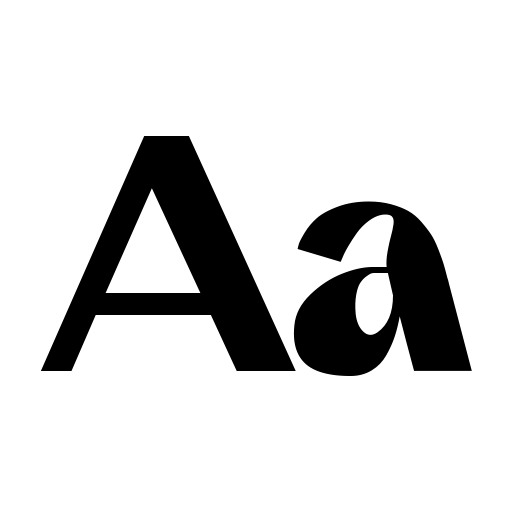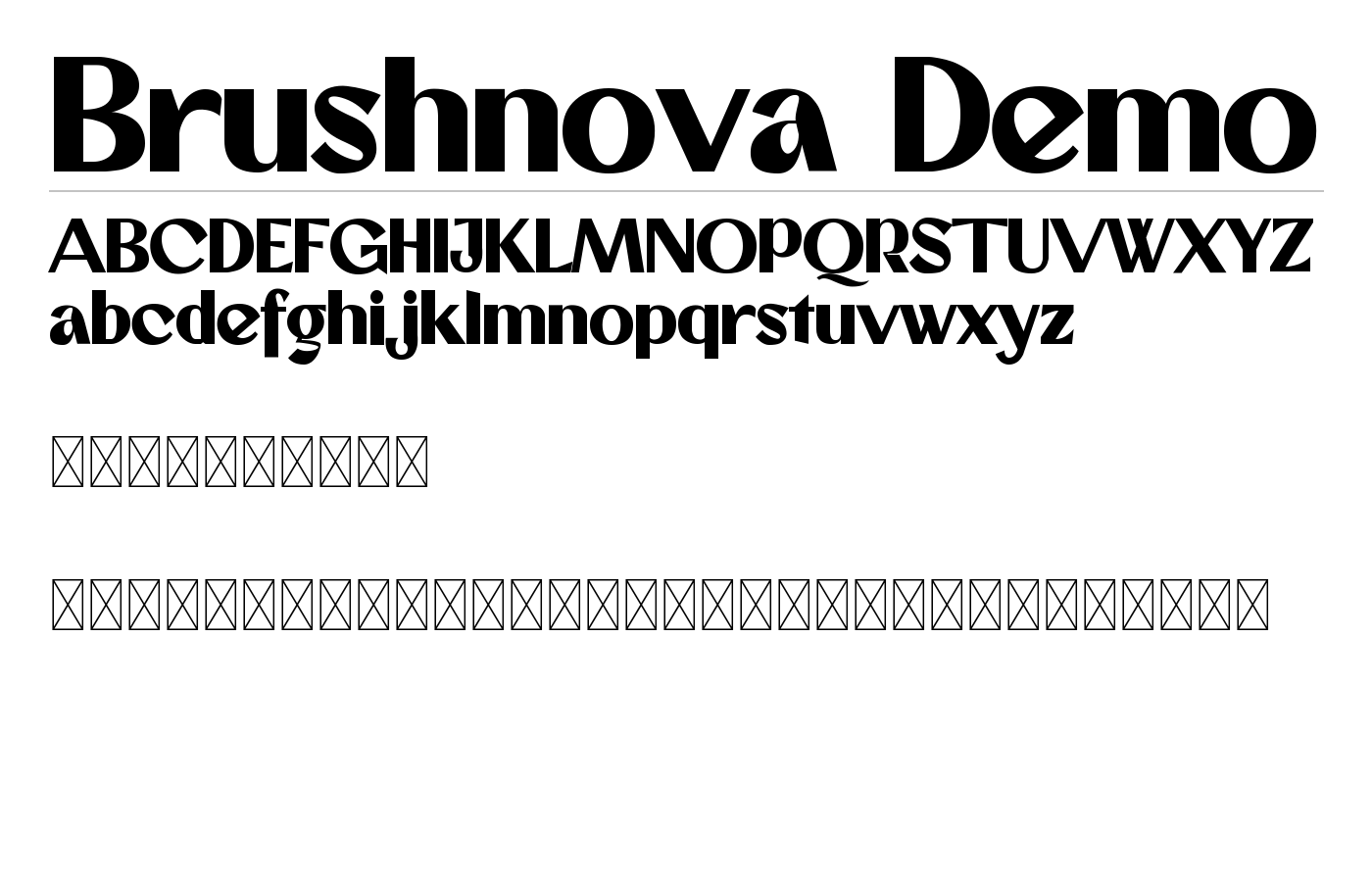
Brushnova is a bold, serif font with a modern twist, featuring sharp, clean lines and a high contrast between thick and thin strokes. Its distinctive letterforms, such as the unique ‘a’ and elegant curves, give it a stylish yet strong personality, making it ideal for eye-catching headlines, logos, and editorial design that require a touch of sophistication and impact. This font works well for brands aiming to convey confidence and contemporary elegance.
Brushnova Font
About Brushnova Font
| Font family | Brushnova Font |
| Designer | Lettercorner Studio |